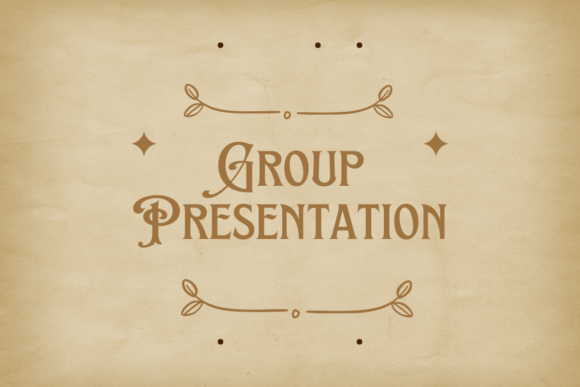
Vintage Ornament Font
Vintage Ornament is an elegant dingbats font filled with decorative swashes and botanical flourishes. Perfect for invitations, certificates, logos, and vintage-themed designs, these hand-drawn ornaments add charm and detail without overpowering your layout. A lovely finishing touch for classy or romantic projects.